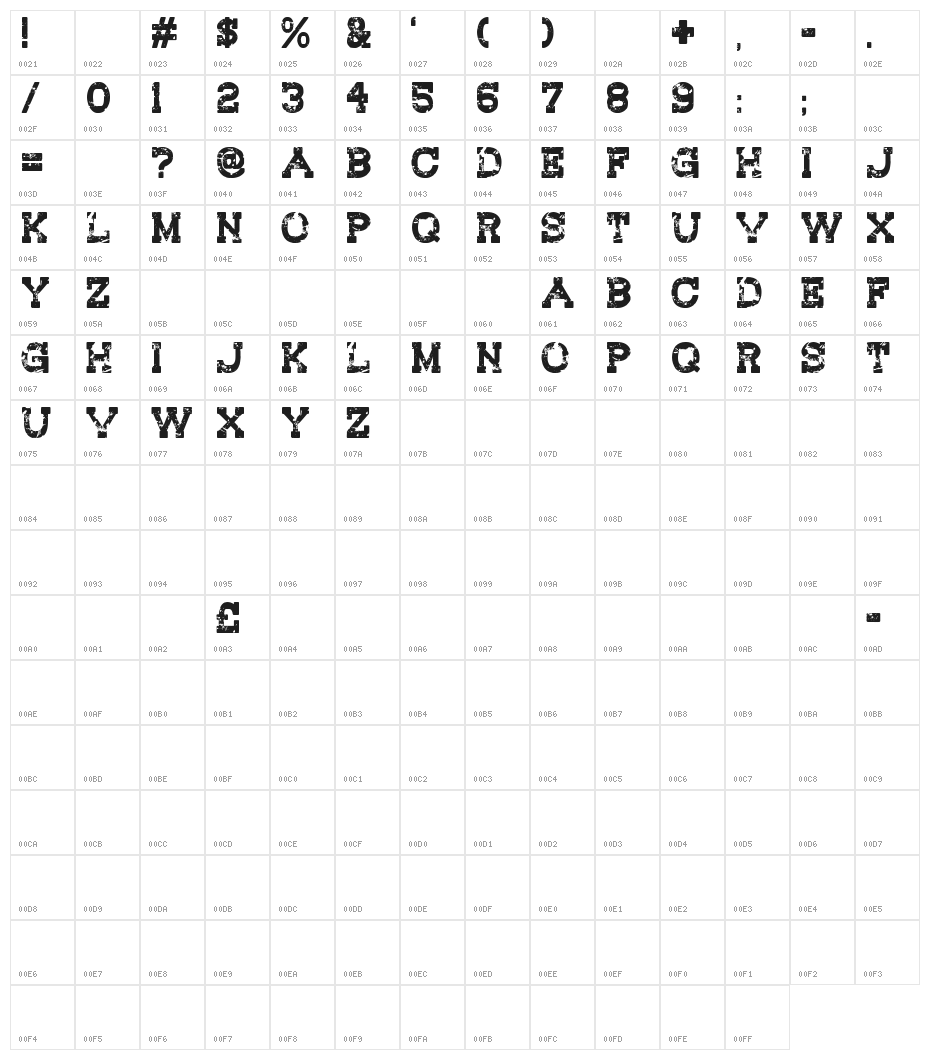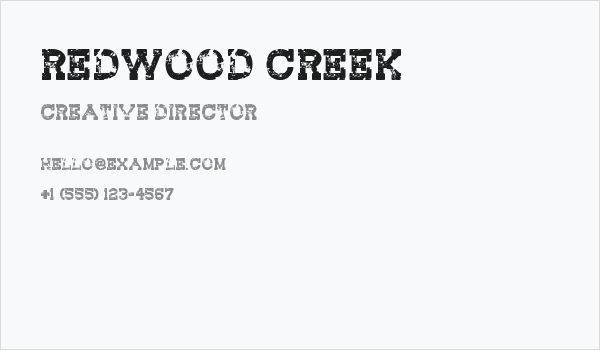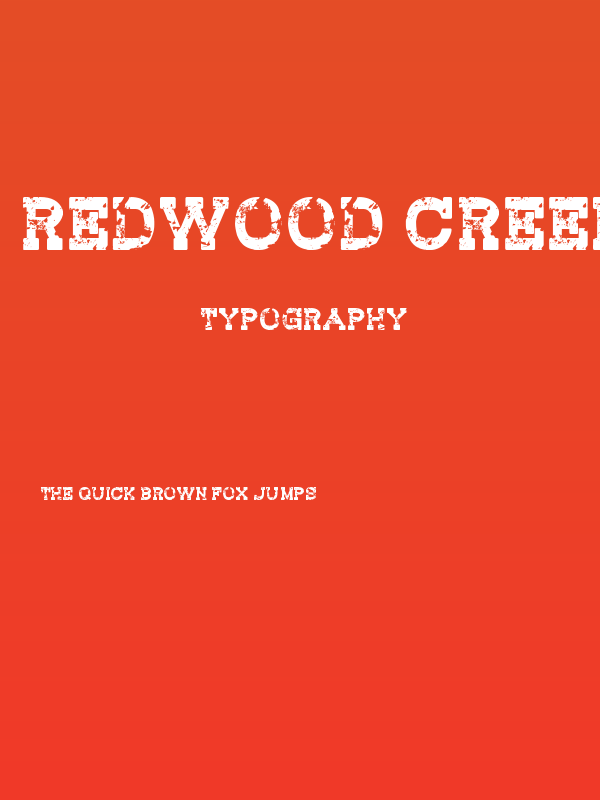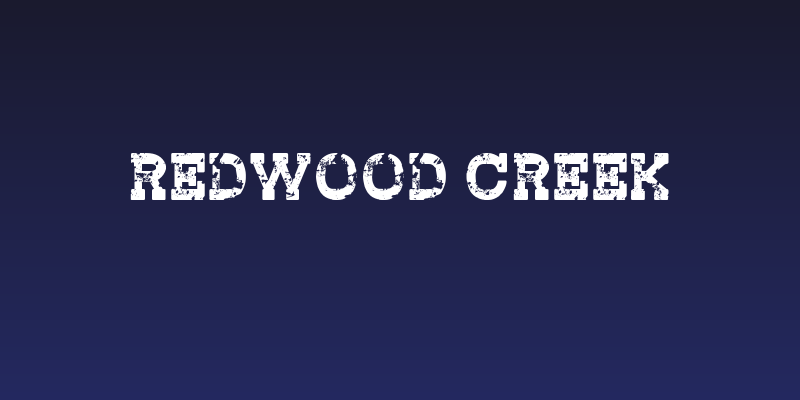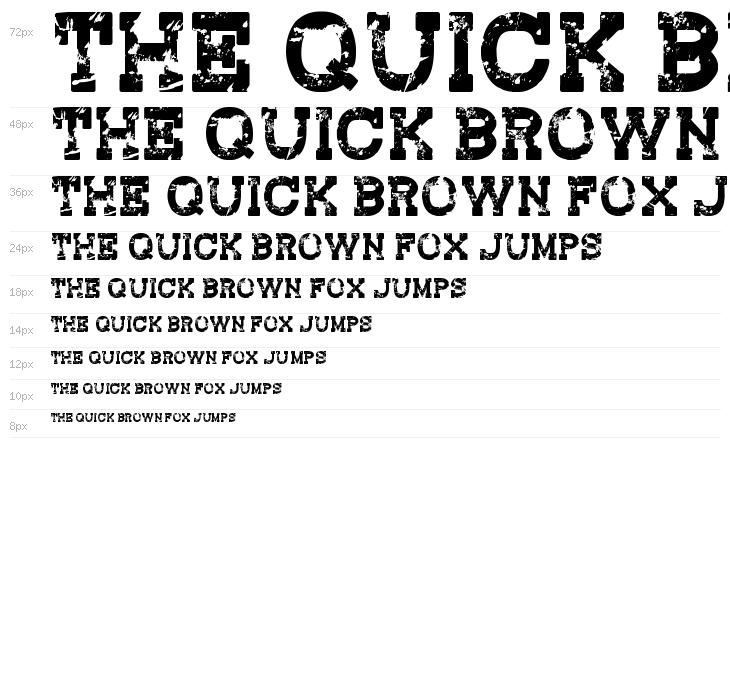
Redwood Creek Font
Redwood Creek Description
This font features a bold, distressed style with a rugged, textured appearance that gives it a vintage, worn look. The characters are bold and impactful, with a rough, uneven texture that suggests a sense of age and history. The font's design is reminiscent of old, weathered signage or print, making it ideal for projects that require a rustic or industrial aesthetic. The uppercase letters are prominent and commanding, while the numbers and special characters maintain the same distressed style, ensuring consistency across all text elements.
| Proposed Projects | Ideal for branding, posters, vintage-themed designs, and any project needing a rustic or industrial touch. |